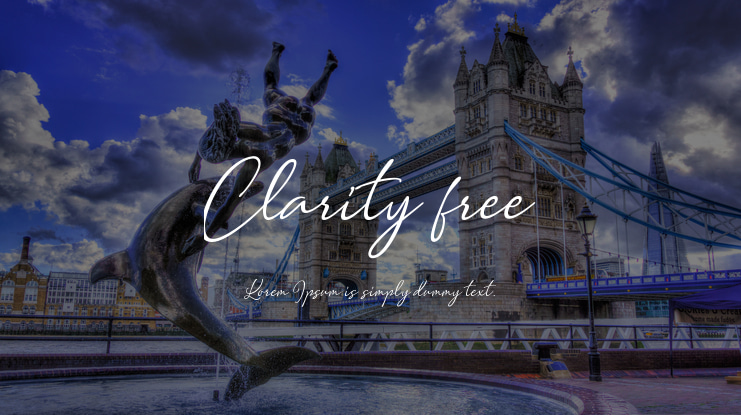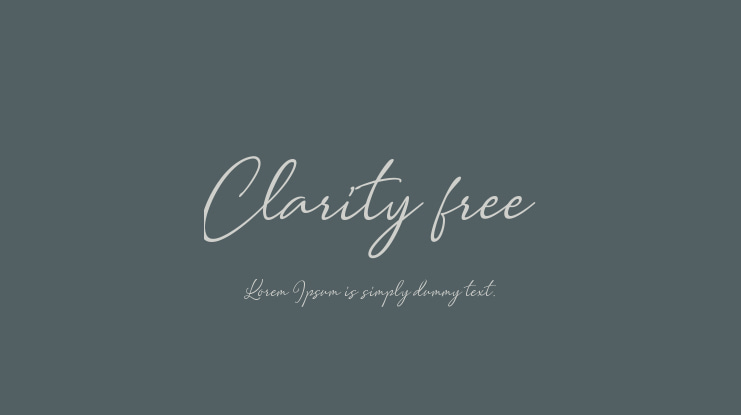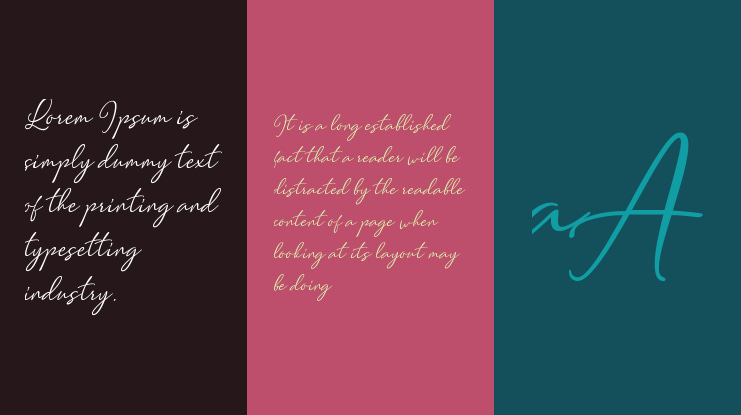
Clarity free Font
Clarity is a script font that has the characteristic handwriting, it is very suitable to make certain label and event business and you could be using for a unique piece.
Clarity free font preview